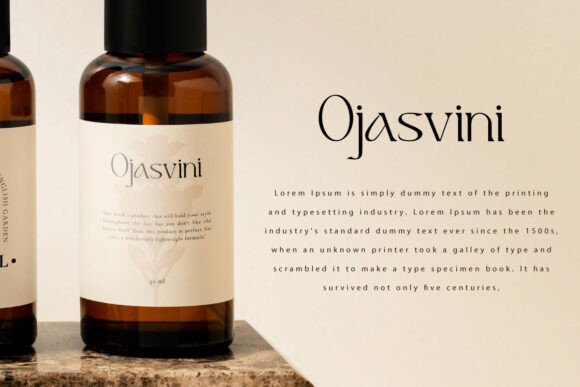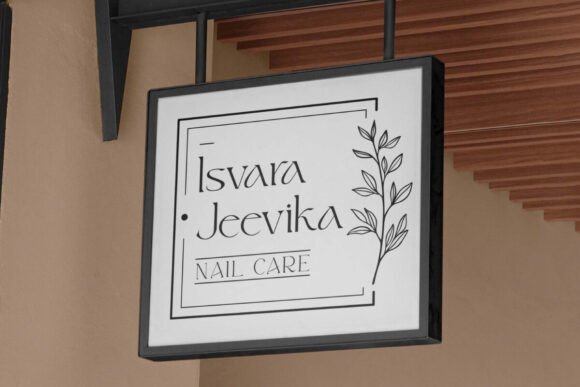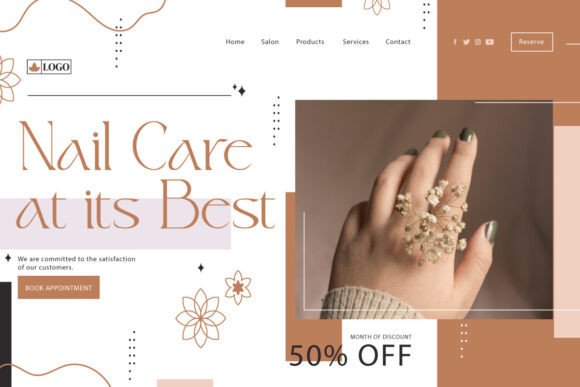
Cedaredge Font
Cedaredge Font is an elegant serif display font with unique fancy characters. This font has sleek characters with a unique shape to give a fancy look. It will suit many designs, such as custom design, gift box, invitation, label, product packaging, quote, screen printing, signage, stationery, website, and more!